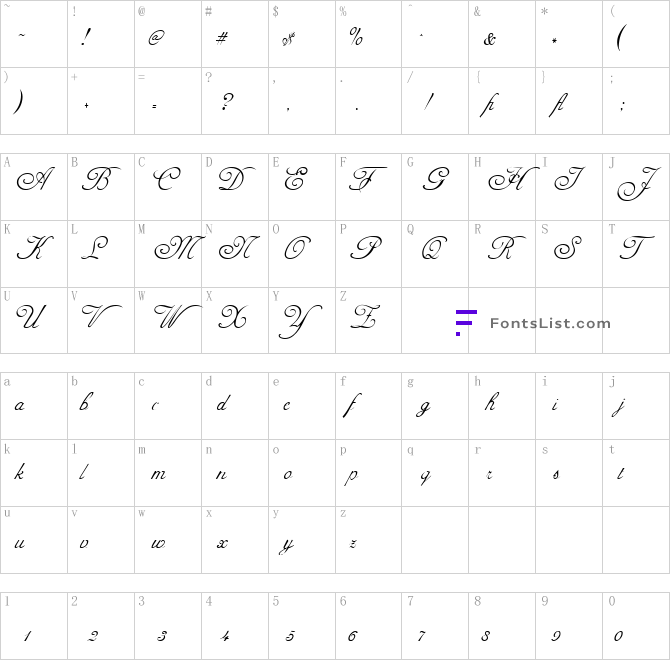
- Font Name:AdineKernberg
AdineKernberg-Regular.ttf is a very beautiful artistic font, AdineKernberg-Regular.ttf is widely used in the design and printing of various books and pictures,AdineKernberg-Regular.ttf has a strong visual impact,AdineKernberg-Regular.ttf is a commonly used font in newspapers, magazines and books, and is used in posters, e-commerce Poster design, store design, logo design, font design and other fields.AdineKernberg-Regular.